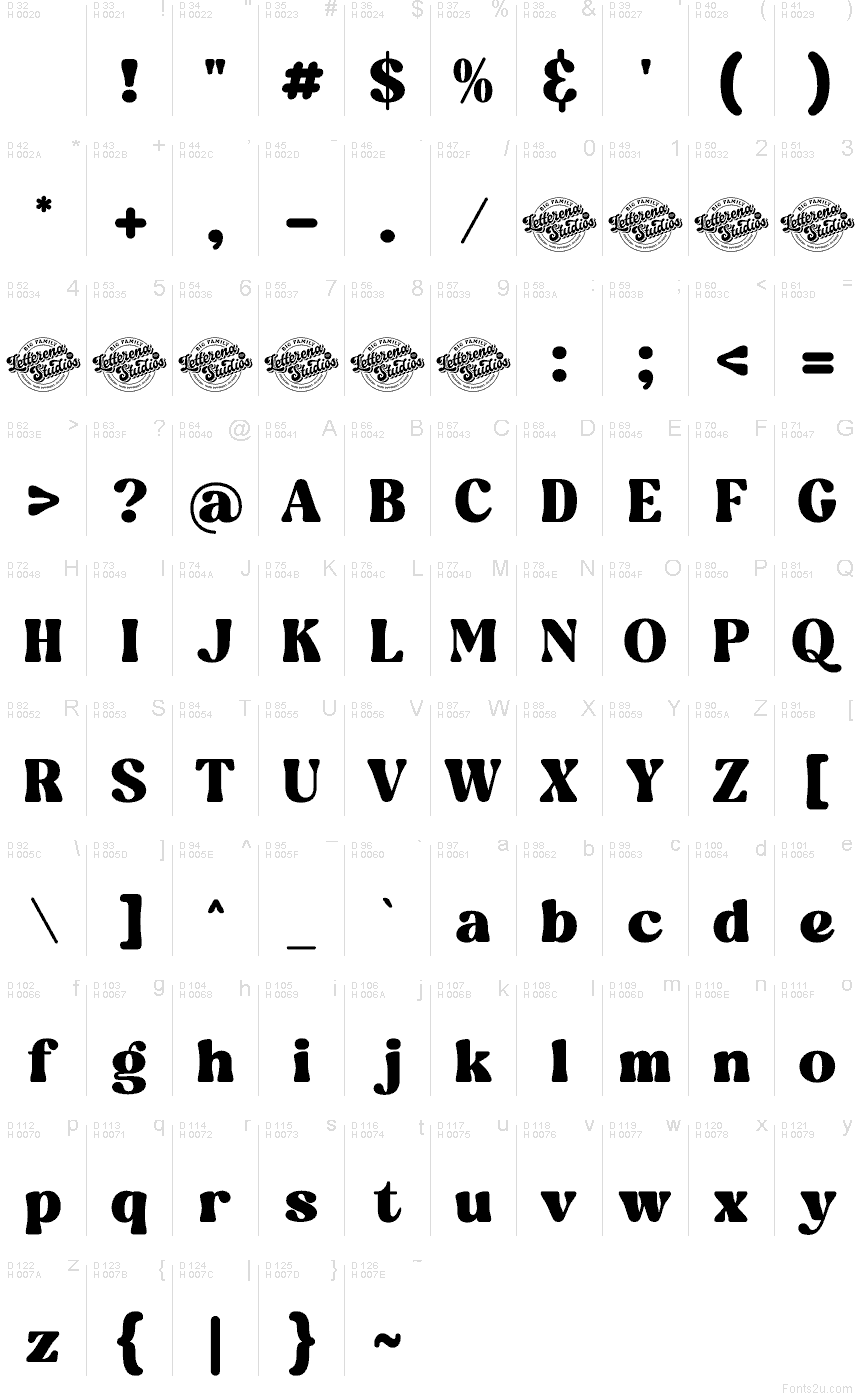
Blugide DEMO VERSION
Blugide font by Letterena Studios is a free chunky serif typeface with big, soft curves and inky, almost balloon-like forms. Each letter looks gently puffed and rounded, giving the text a playful weight that still feels grounded and readable. Those thick strokes and pillowy contours create a bold, tactile presence, as if the words were stamped in velvet ink or cut from smooth foam.
Using Blugide, you get a serif that instantly brings character to logos, packaging, editorial headlines, posters, social graphics, and bold website hero text. This free font thrives at larger sizes, where its plump shapes and tight rhythm can really shine. Pair Blugide with a clean geometric sans in smaller copy to balance its friendly fullness and keep your layouts feeling fresh, modern, and confident.